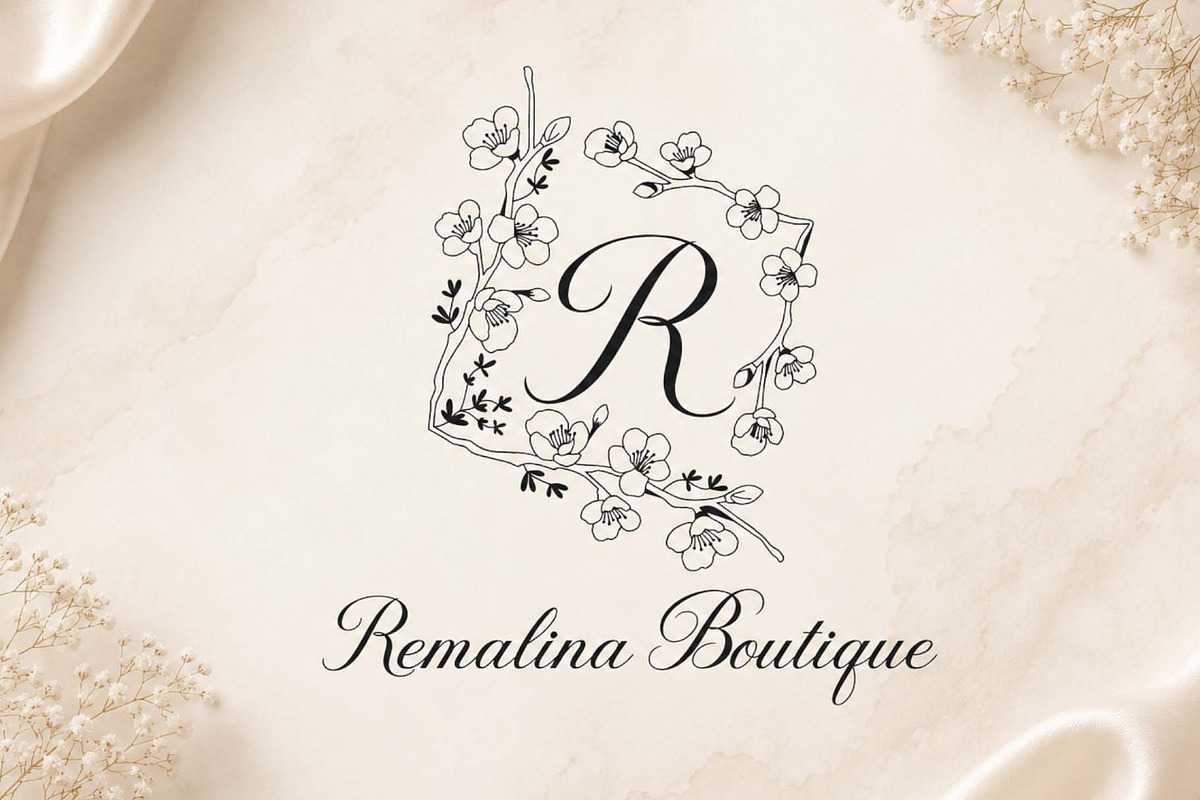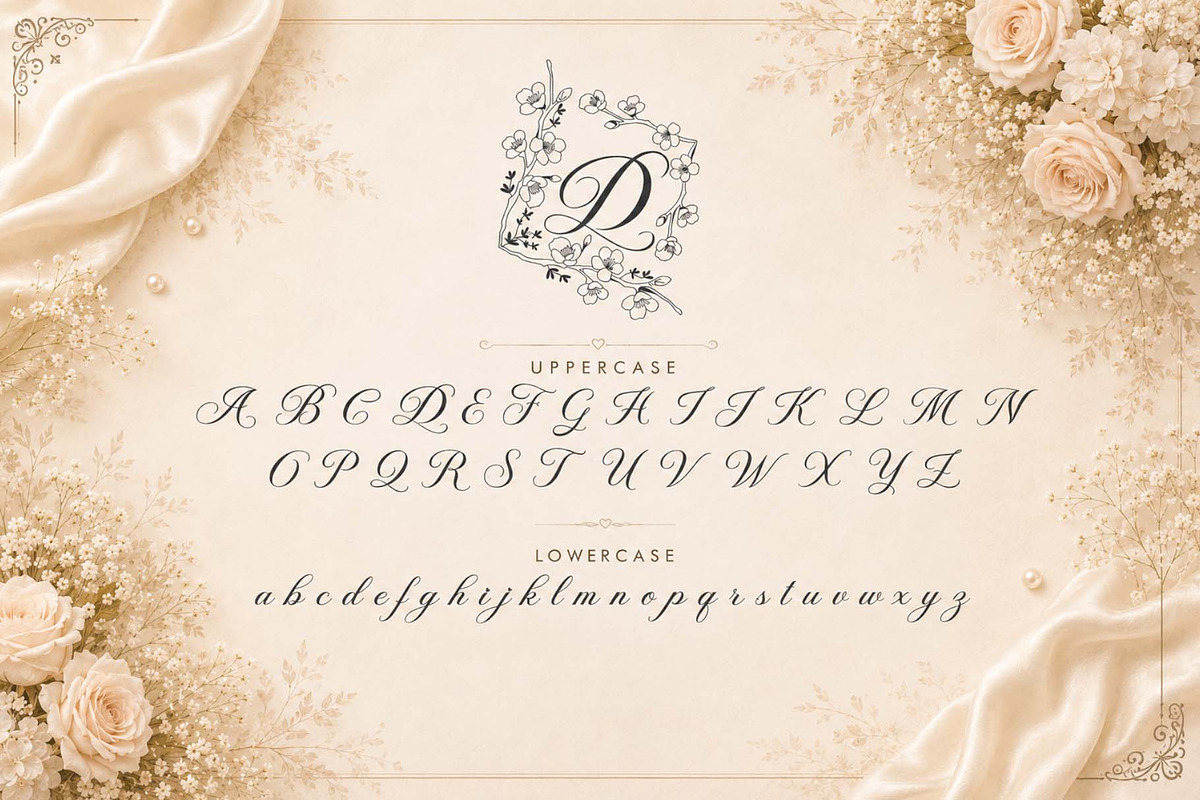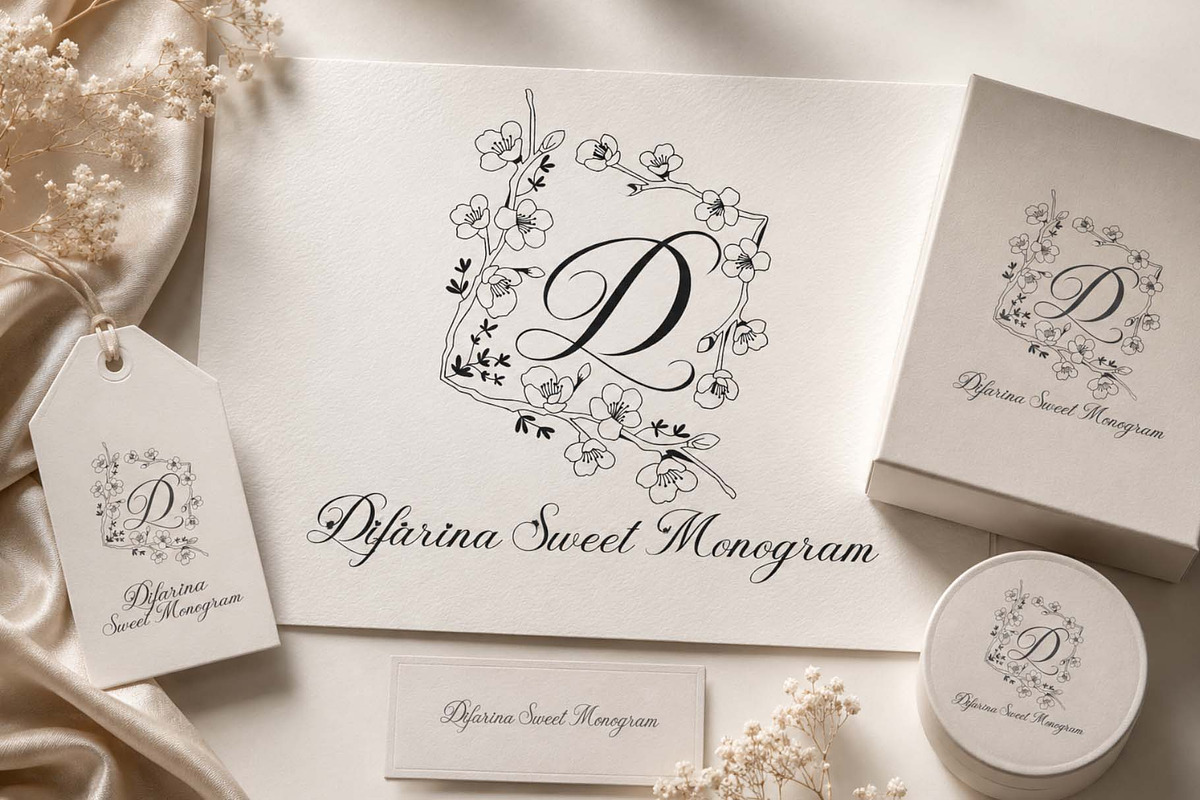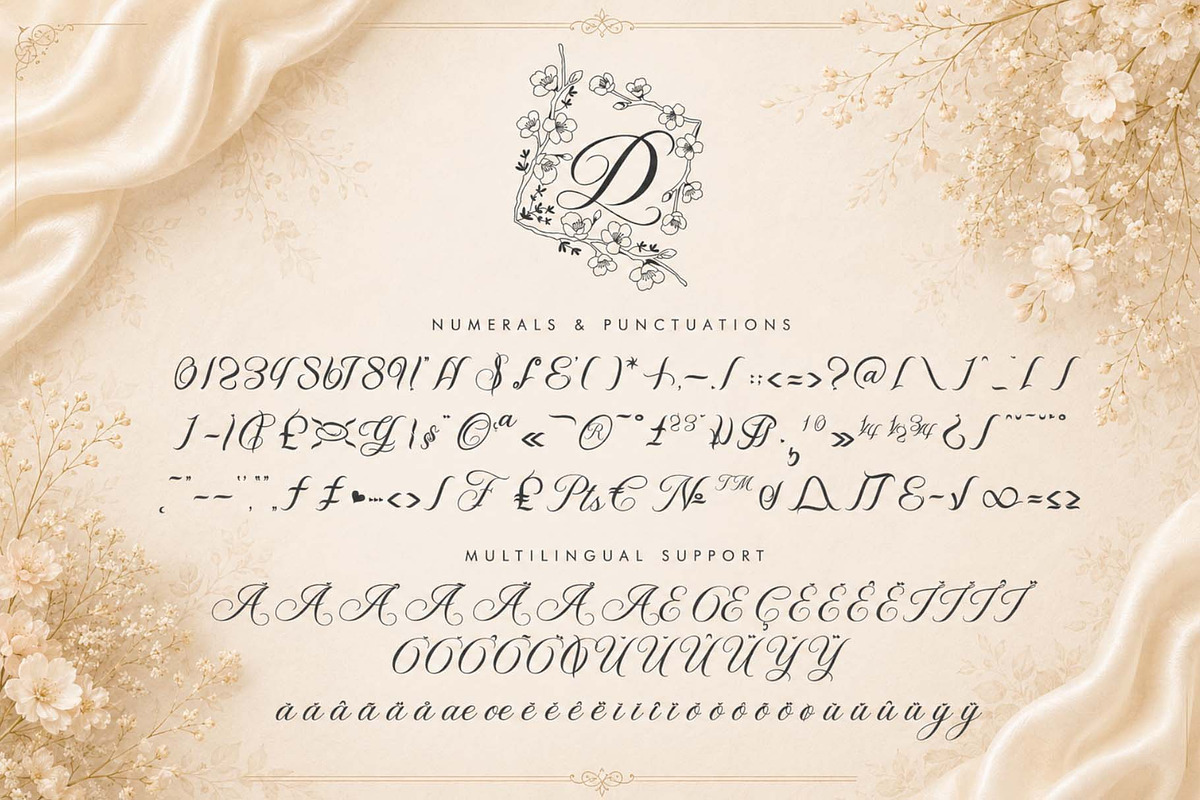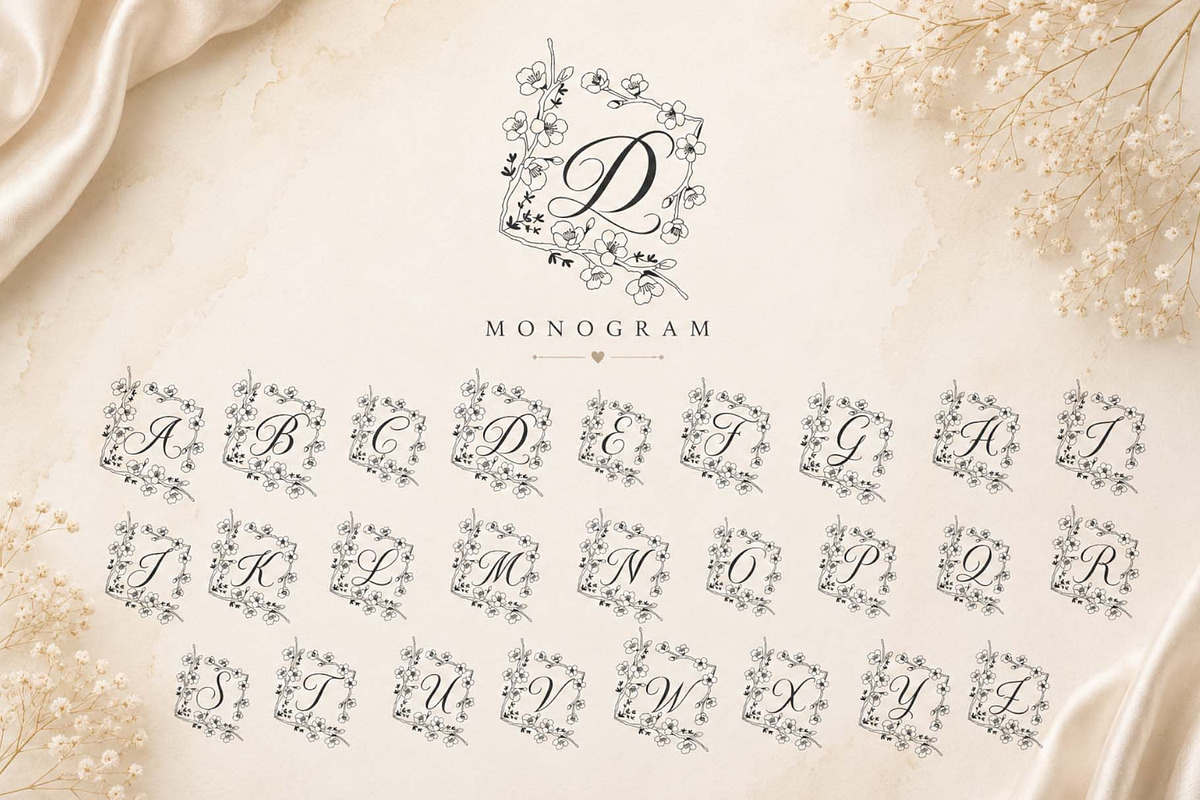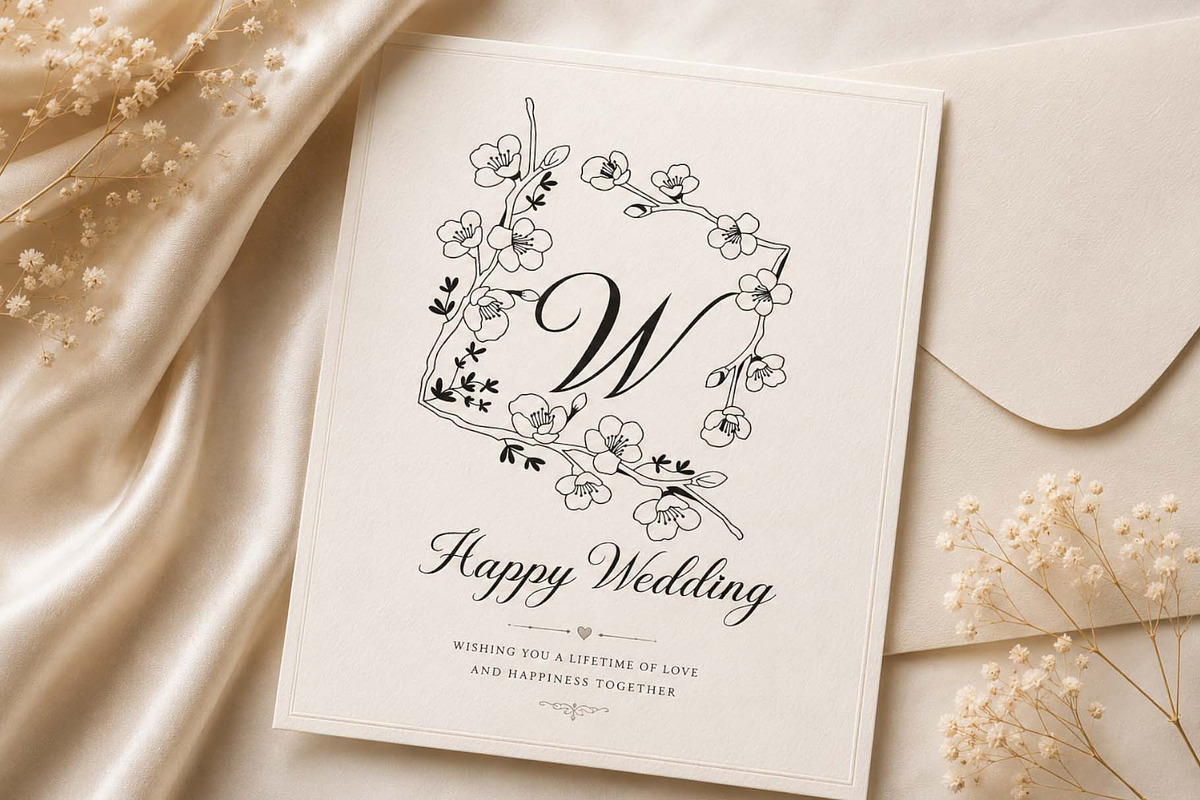
Difarina Sweet Monogram
Difarina Sweet Monogram is a graceful and elegant monogram font, featuring delicate floral flourishes and sophisticated strokes. Designed to convey a touch of luxury and romance, it's perfect for wedding invitations, branding, logos, packaging, stationery, and personalized gifts. Its timeless beauty combines classic calligraphy with captivating botanical details, creating a refined and unforgettable visual impression.